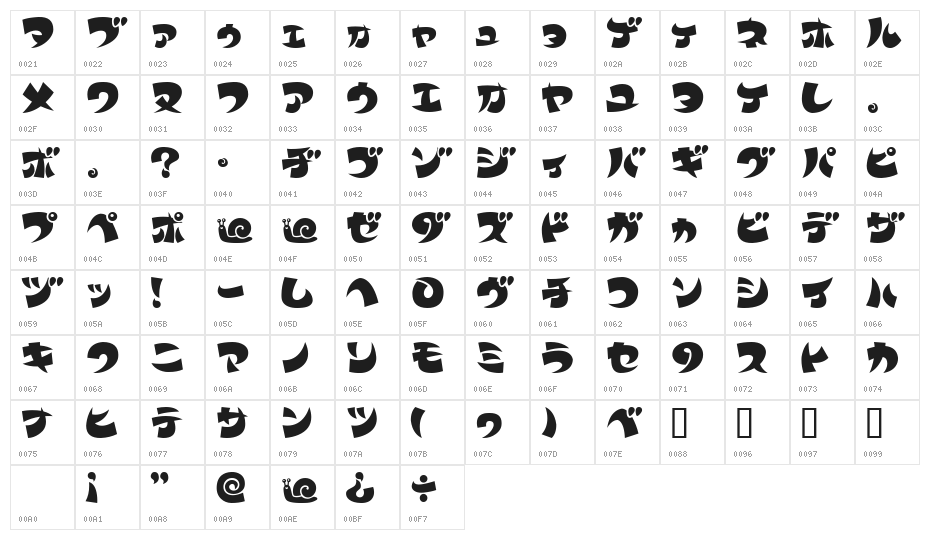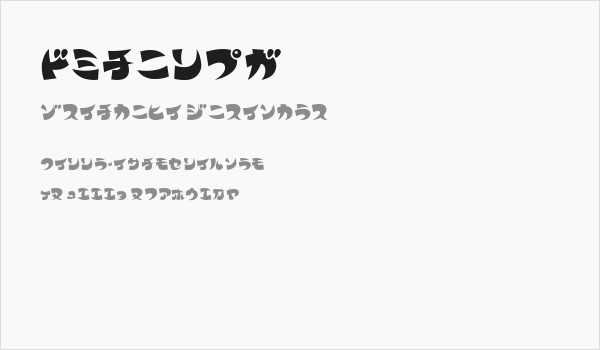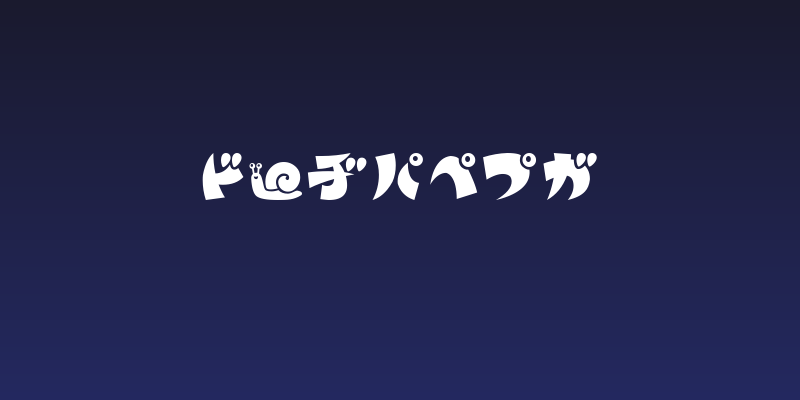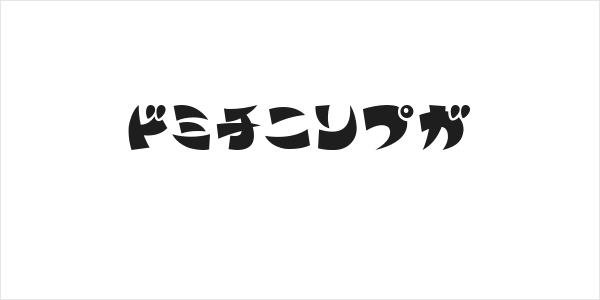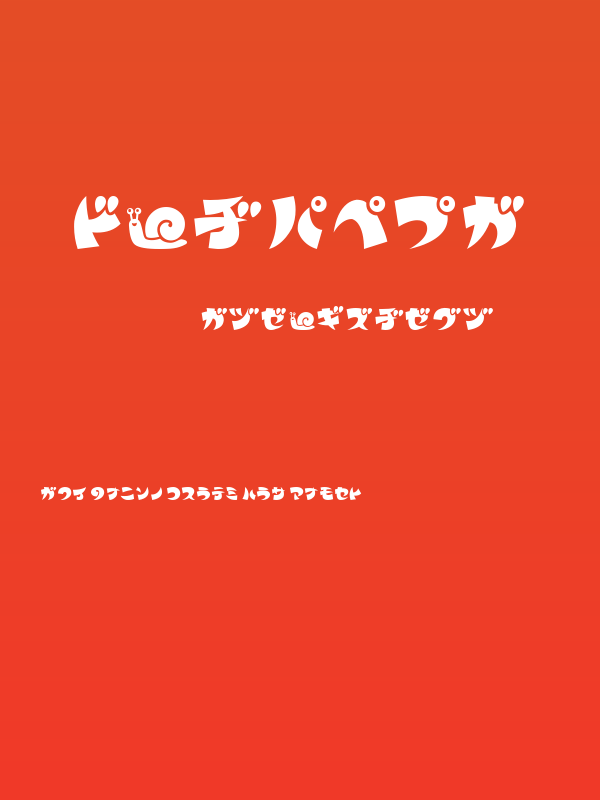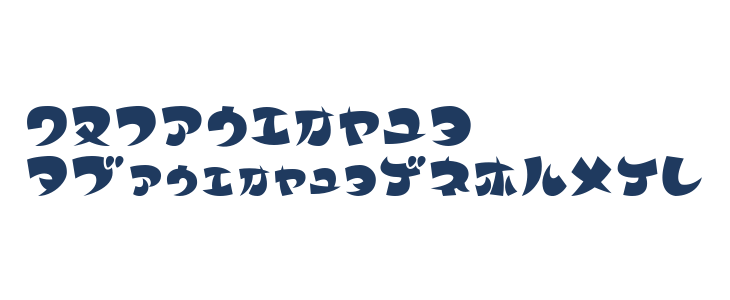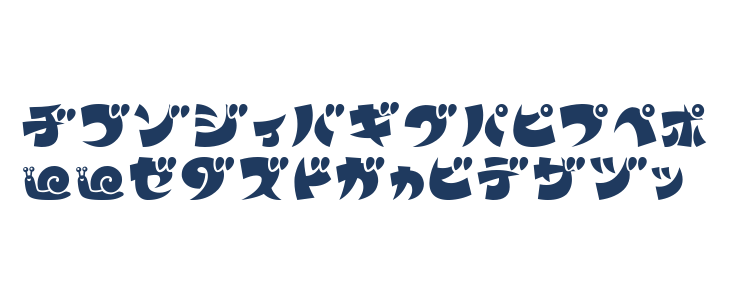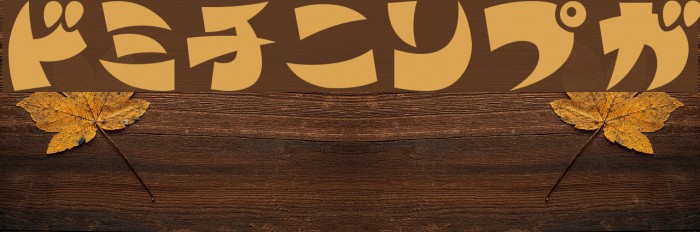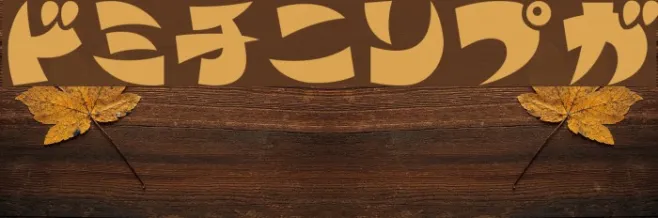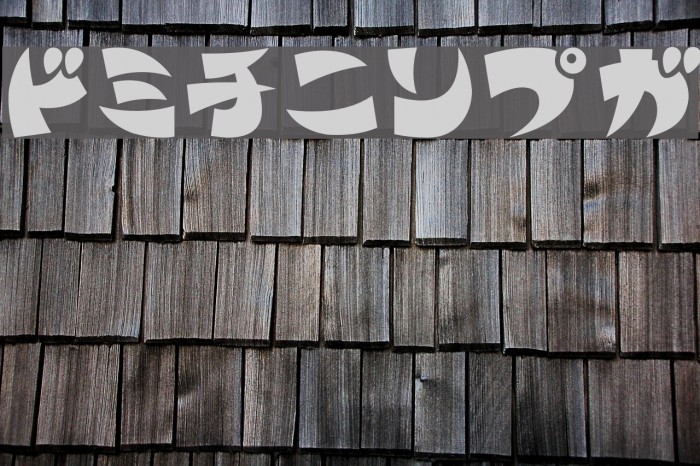
SnailKT Font
SnailKT Description
This font features a playful and whimsical design, characterized by its bold and rounded letterforms. The strokes are thick and consistent, giving it a strong visual presence. The style incorporates elements that suggest movement and energy, with some characters having a slight tilt or curve that adds to its dynamic appearance. The overall look is fun and engaging, making it suitable for creative and informal applications. The font's unique style is reminiscent of cartoon or comic lettering, which can capture attention and convey a sense of humor or lightheartedness.
| Proposed Projects | Ideal for children's books, comic strips, playful branding, and event posters. |